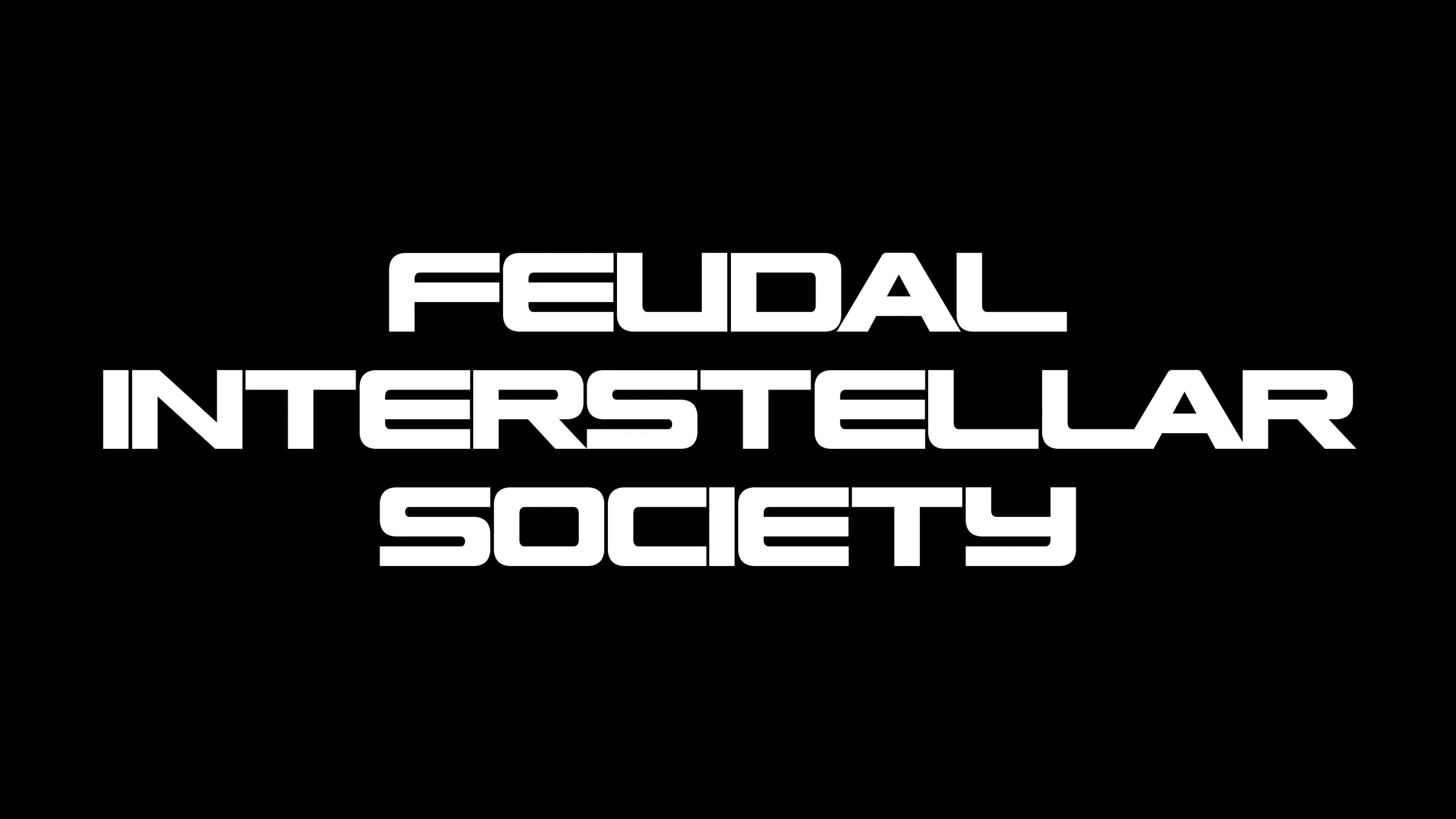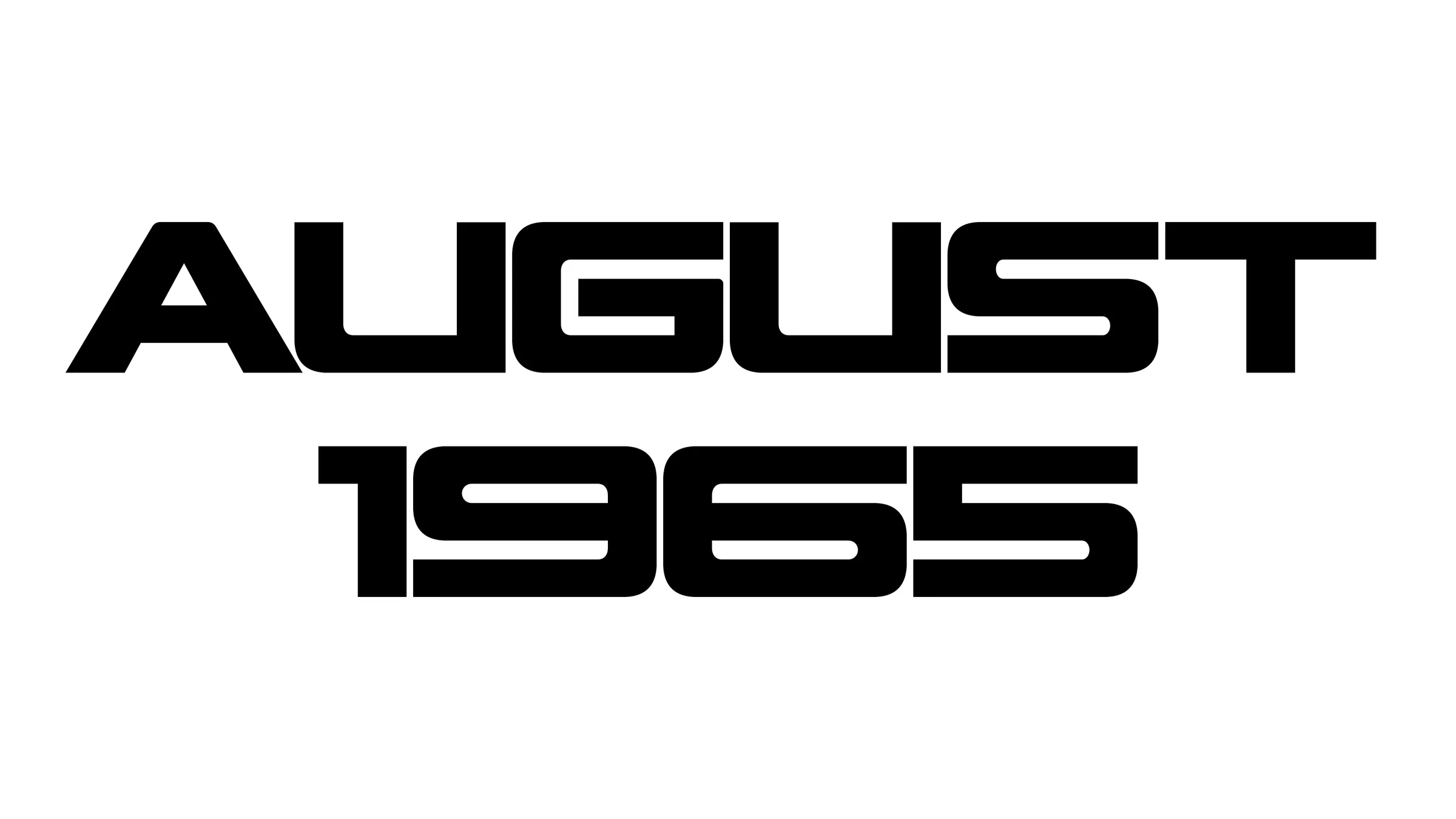
Leto finds its origins in the logos and lettering of the world of motorsports. Referring to the intensity and speed of cars and motorcycles in this field, Leto's style is modular, geometric, and pragmatic. It is built on a very low structure, which brings a very high x-height while maintaining a 'compact' and 'streamlined' character. These types of shapes are also obviously found in industrial contexts, on logos of printing machines, for example, or on futuristic elements in science fiction films. This mix of references and influences becomes interesting when using Leto to shape content with the aim of making it appear technical and well-designed, or fast and ergonomic, or even futuristic and impacting.